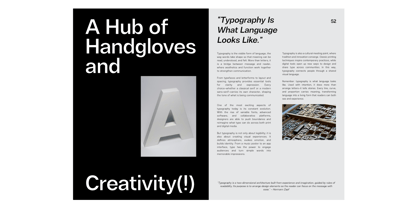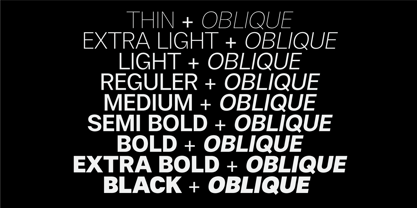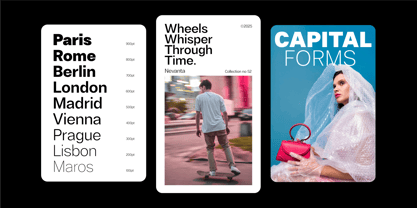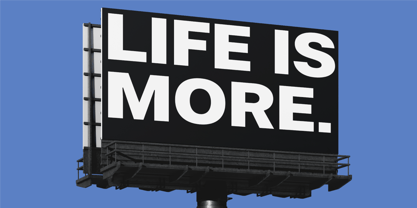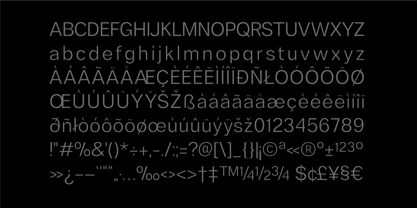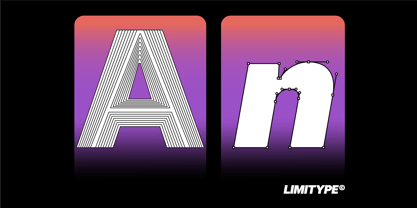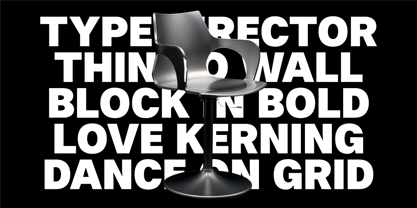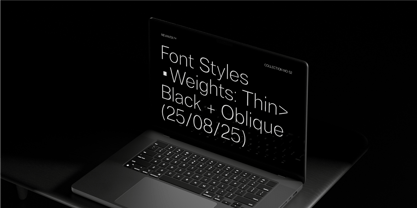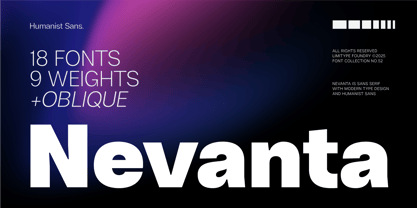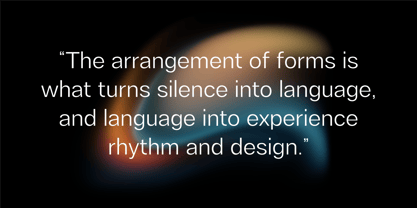
Nevanta
by limitype
The Nevanta Font Family was designed by Wildan Suprian Syah, Muhammad Muammar, Furqan Sudirman and published by limitype. Nevanta contains 18 styles and family package options. More about this family
Nevanta is a modern sans serif font with 18 styles (9 weights + Oblique), designed for professional, clean, and versatile typography. With precise geometric proportions and excellent readability, it is ideal for branding, websites, editorials, posters, and corporate identity. Multilingual support ensures flexibility, making it a complete typeface solution for both creative and professional projects.
Nevanta available with:
- Uppercase
- Lowercace
- Number
- Symbol
- Multiligual
- Oblique